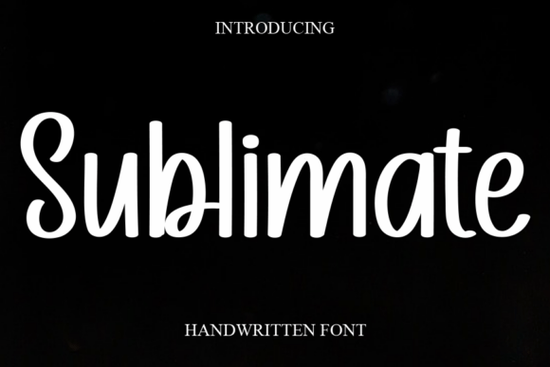
When it comes to adding a personal and elegant touch to your designs, the Sublimate Font is a fantastic choice. This sweet and cursive handwritten font brings a gentle and romantic feel to any project, making it perfect for a variety of creative endeavors.
Why Choose Sublimate Font for Your Designs?
Sublimate Font is not just another pretty script; it's a versatile and charming addition to your font collection. Whether you're working on branding, wedding invitations, or greeting cards, this font can add a joyful and sophisticated element to your work. Its cursive style is both elegant and casual, making it suitable for a wide range of design projects.
Perfect for Branding and Logo Design
One of the standout features of Sublimate Font is its suitability for branding and logo design. The smooth, flowing lines and gentle curves make it ideal for creating logos that are both memorable and visually appealing. If you're looking to give your brand a touch of elegance with a personal, handwritten feel, Sublimate Font is a great choice.
Ideal for Wedding Invitations and Greeting Cards
Wedding invitations and greeting cards often require a font that exudes romance and charm. Sublimate Font fits the bill perfectly. Its cursive style and delicate appearance can enhance the overall aesthetic of your invitations and cards, making them look more inviting and special. Whether you're designing for a rustic wedding or a formal event, this font can complement your theme beautifully.
Versatile for Marketing and Promotional Materials
Marketing and promotional materials need to be eye-catching and engaging. Sublimate Font can help you achieve that. Its elegant yet casual style makes it suitable for a wide range of marketing collateral, from social media graphics to print advertisements. It can add a touch of sophistication to your marketing efforts without appearing too formal or stiff.
Complementary Fonts for a Cohesive Look
To create a cohesive and well-rounded design, consider pairing Sublimate Font with other complementary fonts. For example, Sophia Font offers a similar elegant and handwritten feel, while Strawberry Chesscake Font adds a playful and whimsical touch. Other great options include Like Magic Font, Milkshake Font, and Paint Brush Script Font. These fonts can work together to create a balanced and visually appealing design.
Where to Use Sublimate Font
- Branding and Logos: Create a unique and memorable brand identity with the elegant and personal touch of Sublimate Font.
- Wedding Invitations and Greeting Cards: Add a romantic and sophisticated feel to your special occasion stationery.
- Fashion and Lookbooks: Enhance your fashion designs and lookbooks with a font that exudes elegance and style.
- Marketing and Promotional Materials: Make your marketing collateral stand out with a font that is both elegant and approachable.
- Test Different Sizes and Styles: Experiment with different sizes and styles to see how the font looks in various contexts. This will help you find the best fit for your specific project.
- Pair with Complementary Fonts: As mentioned earlier, pairing Sublimate Font with other complementary fonts can create a more dynamic and visually appealing design. Try different combinations to see what works best.
- Use for Special Occasions: Consider using Sublimate Font for special occasions like weddings, anniversaries, and birthdays. Its romantic and elegant style can make these events even more memorable.
Final Thoughts
Sublimate Font is a wonderful addition to any designer's toolkit. Its sweet and cursive style can add a joyful and romantic touch to your projects, making it perfect for a wide range of creative endeavors. Whether you're working on branding, wedding invitations, or marketing materials, this font can help you achieve a sophisticated and elegant look. Give it a try and see how it can transform your designs.